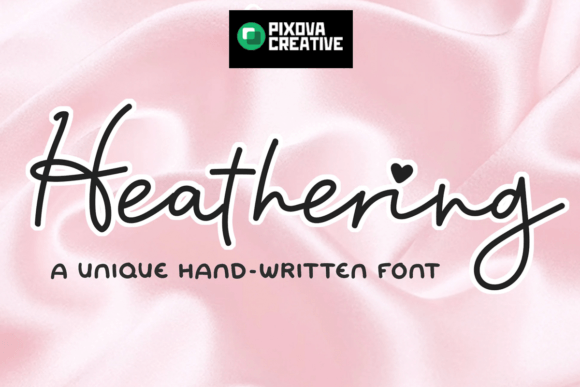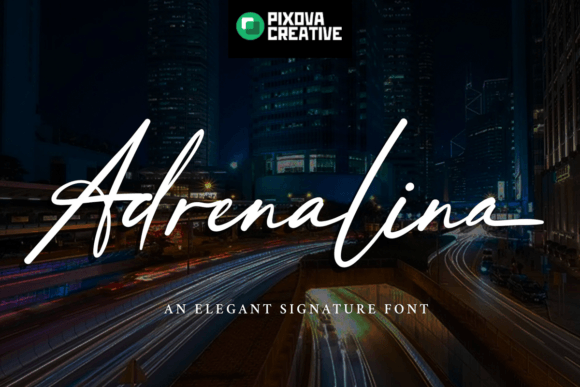
Elevate Your Designs with Heathering X Adrenalina Duo Font: A Perfect Blend of Elegance and Sophistication
Are you tired of using the same old fonts in your designs? Do you want to add a touch of elegance and sophistication to your projects? Look no further than the Heathering X Adrenalina Duo Font. This beautifully coordinated font pair is designed to bring a level of refinement and style to your designs, making them stand out from the crowd.
A Harmonious Union of Two Unique Fonts
The Heathering X Adrenalina Duo Font is a carefully crafted combination of two fonts, Heathering and Adrenalina, which blend seamlessly together to create a cohesive and stylish look. Both fonts feature a unique cursive style, with an inviting handwritten touch that adds a level of warmth and personality to your designs.
Heathering: The Epitome of Elegance
Heathering is a stunning font that exudes elegance and sophistication. Its cursive style is characterized by flowing lines and delicate curves, making it perfect for designs where a touch of refinement is desired. Whether you’re working on a luxury brand project, a wedding invitation, or a high-end product packaging, Heathering is the ideal choice.
Adrenalina: The Perfect Blend of Style and Readability
Adrenalina, on the other hand, is a font that embodies style and readability. Its unique cursive style is designed to be highly legible, making it perfect for body text, while its elegant lines and curves add a level of sophistication to your designs. Adrenalina is ideal for projects where you want to make a statement, such as in advertising, marketing materials, or editorial designs.
Why Choose the Heathering X Adrenalina Duo Font?
So, why choose the Heathering X Adrenalina Duo Font for your next project? Here are just a few reasons:
- Unique and distinctive: The Heathering X Adrenalina Duo Font offers a fresh and unique look that will set your designs apart from the crowd.
- Elegant and sophisticated: Both Heathering and Adrenalina exude elegance and sophistication, making them perfect for high-end designs.
- Highly legible: Adrenalina’s cursive style is designed to be highly legible, making it perfect for body text.
- Versatile: The Heathering X Adrenalina Duo Font can be used in a wide range of designs, from luxury brands to editorial projects.
The Heathering X Adrenalina Duo Font is perfect for designers and crafters who want to add a touch of elegance and sophistication to their projects. Whether you’re working on a:
- Logo design: Use Heathering or Adrenalina to create a unique and memorable logo that stands out.
- Wedding invitation: Add a touch of elegance to your wedding invitation with Heathering or Adrenalina.
- Product packaging: Use the Heathering X Adrenalina Duo Font to create eye-catching product packaging that reflects your brand’s personality.
- Editorial design: Use Adrenalina for body text and Heathering for headlines to create a stylish and sophisticated editorial design.
In conclusion, the Heathering X Adrenalina Duo Font is a must-have for designers and crafters who want to elevate their designs to the next level. With its unique cursive style, elegant lines, and highly legible design, this font pair is perfect for a wide range of projects. So why settle for ordinary fonts when you can have a distinctive and stylish font that sets your designs apart? Try the Heathering X Adrenalina Duo Font today and experience the effortless charm and chic sophistication it has to offer.